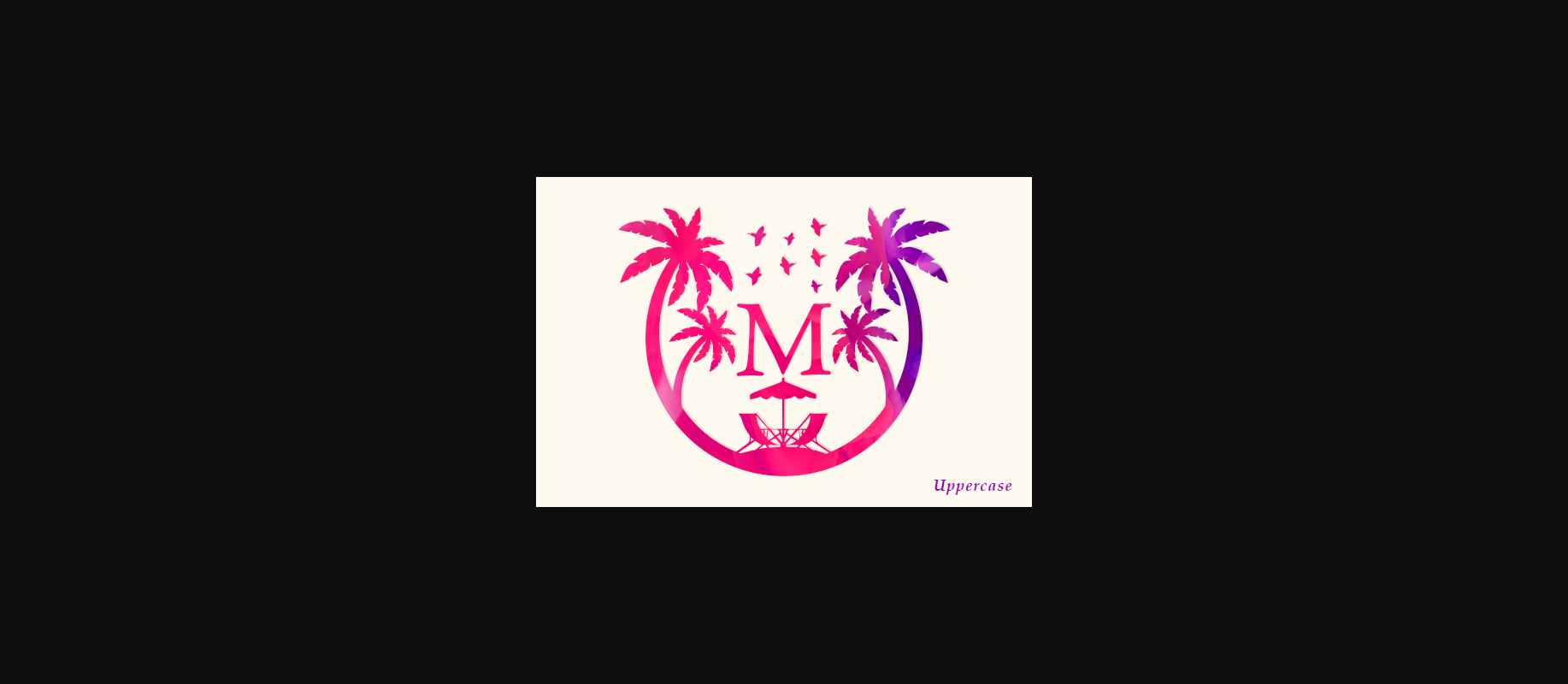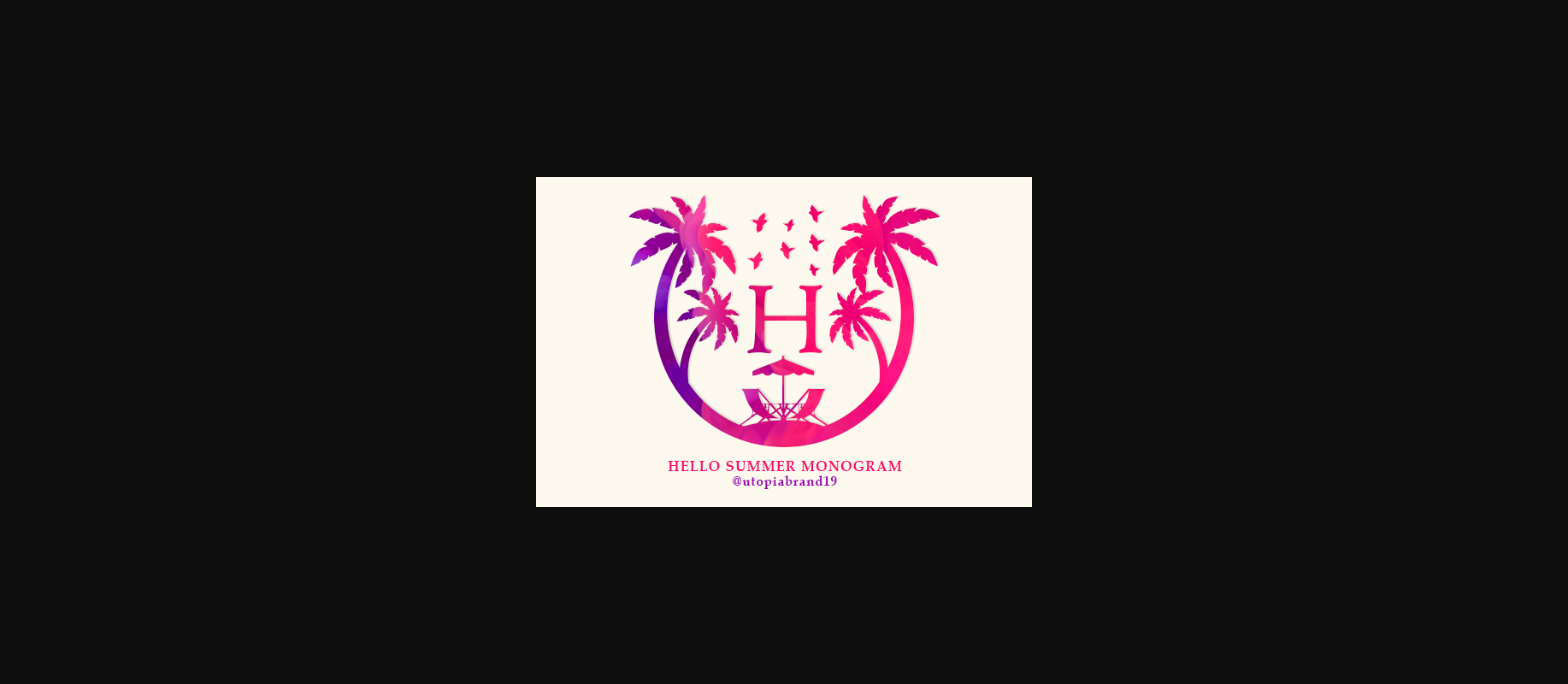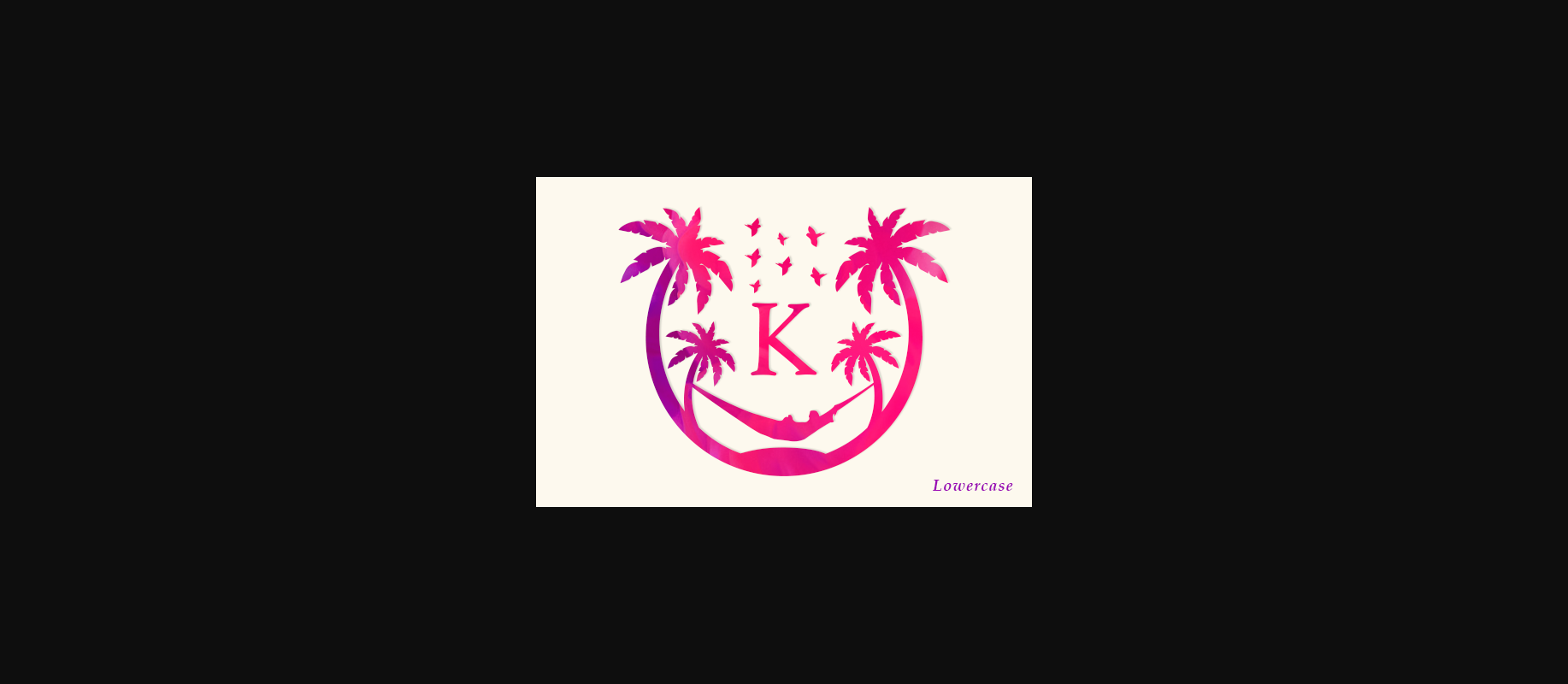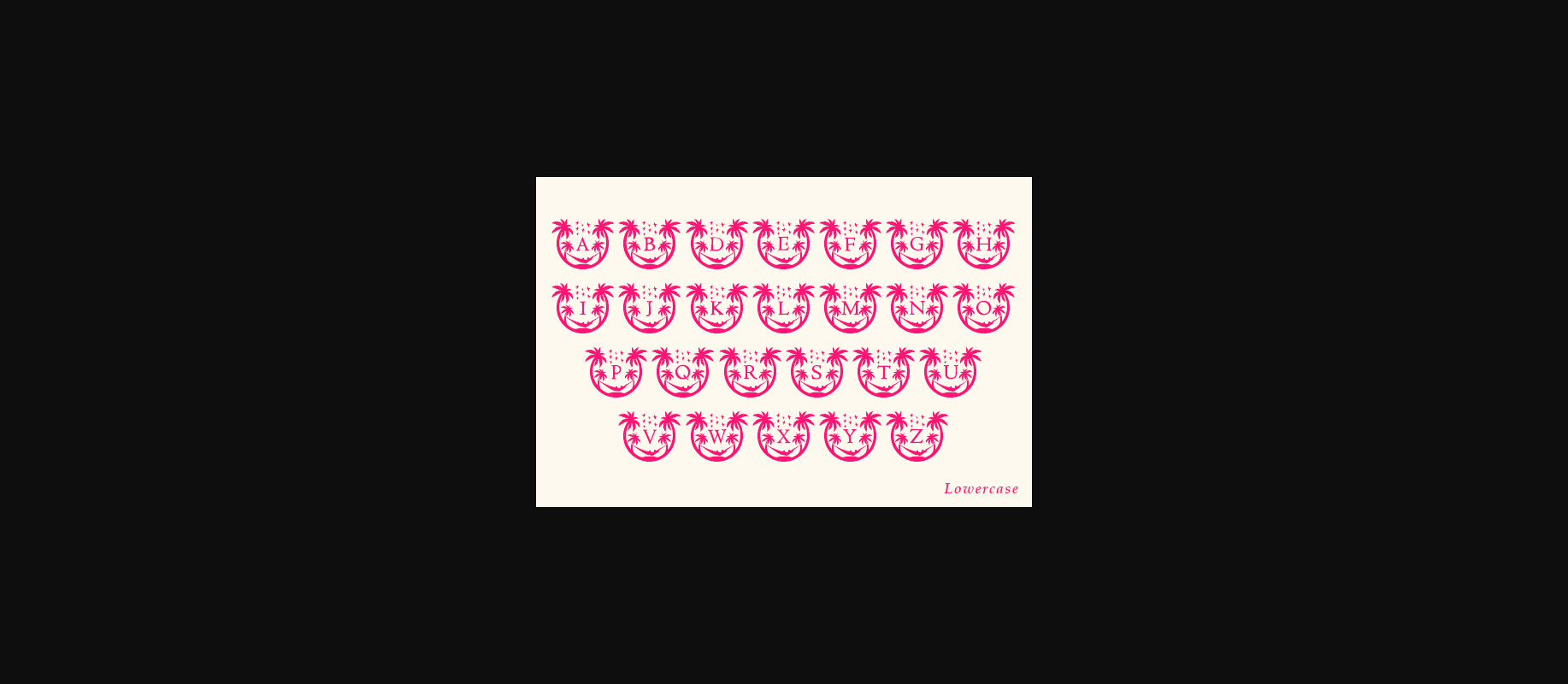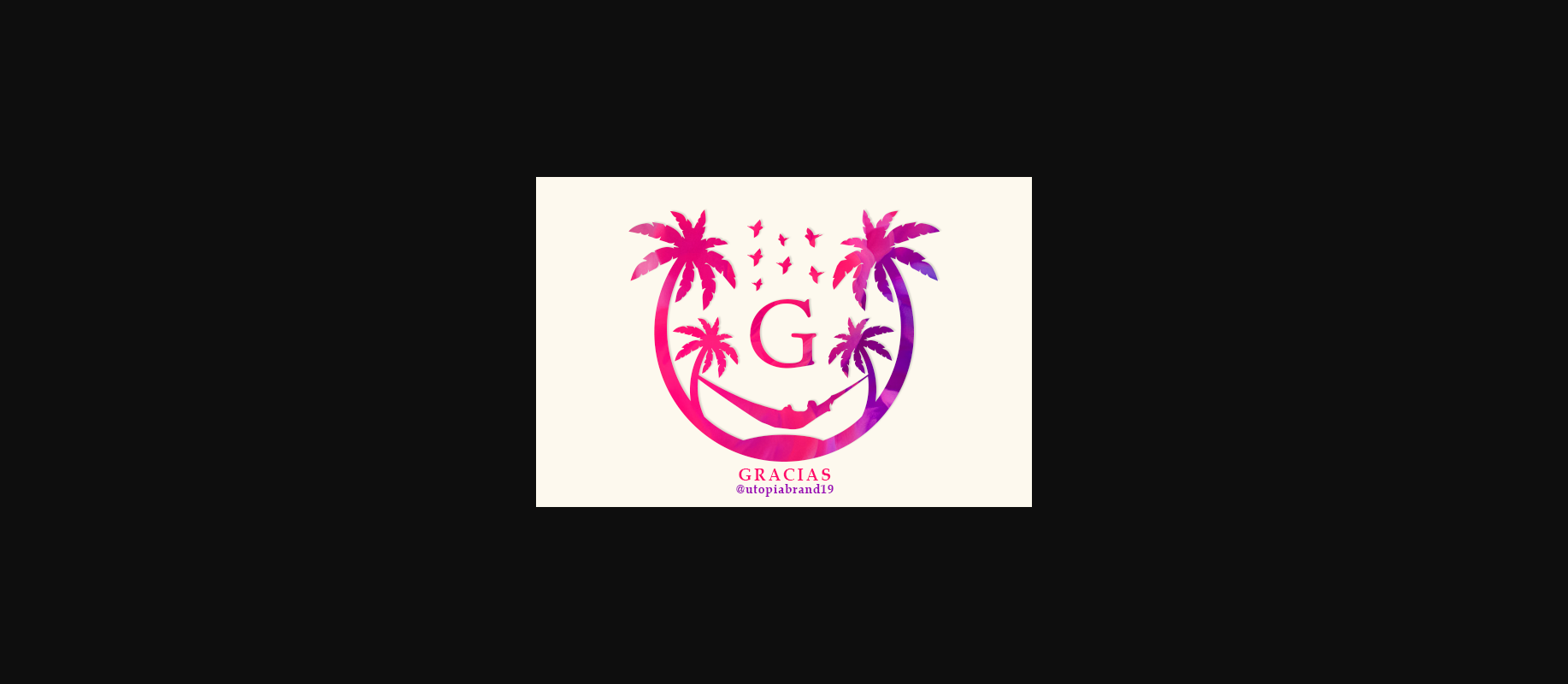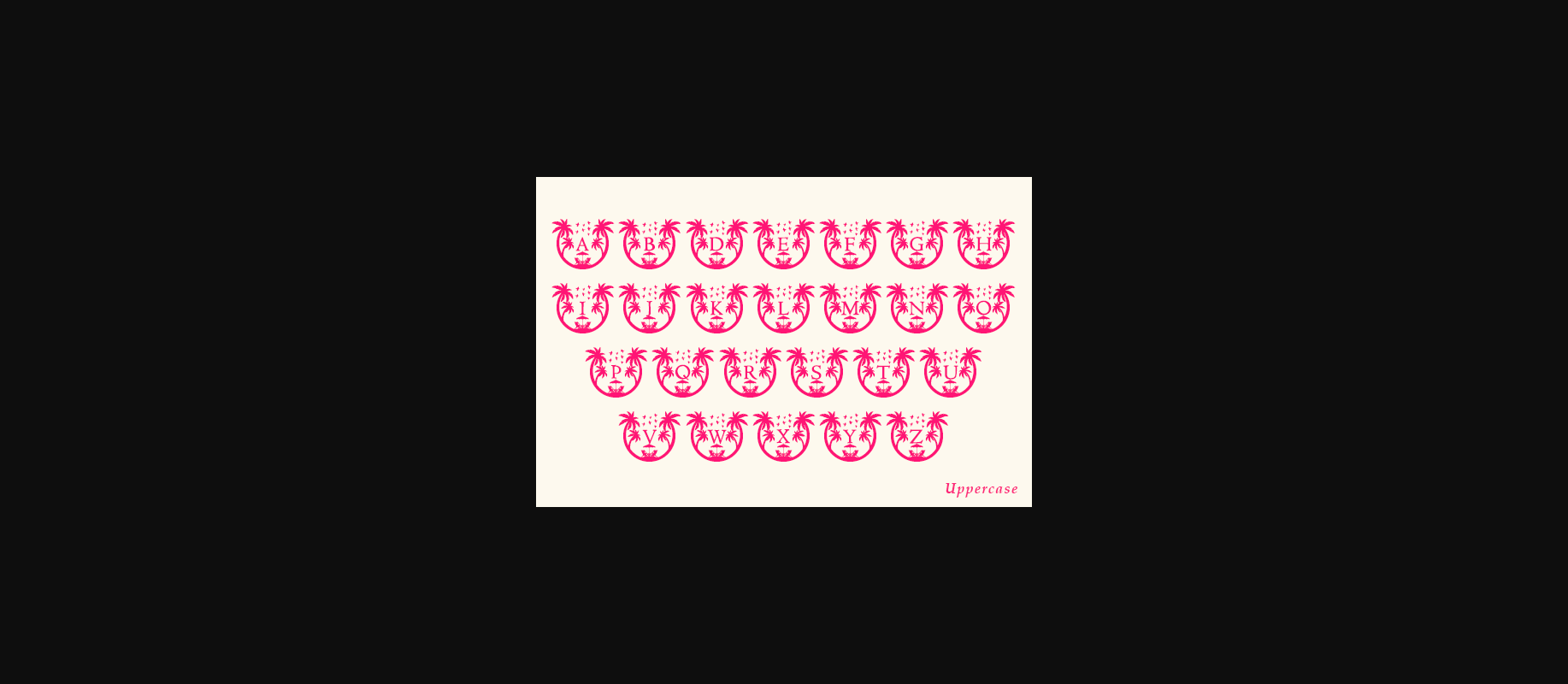
Hello Summer Monogram Font
About Hello Summer Monogram Font
Hello Summer Monogram is a versatile and authentic decorative font. Add this lovely looking font to each of your letters, wedding invitations or favorite design ideas, and you will be astounded by the outcome.